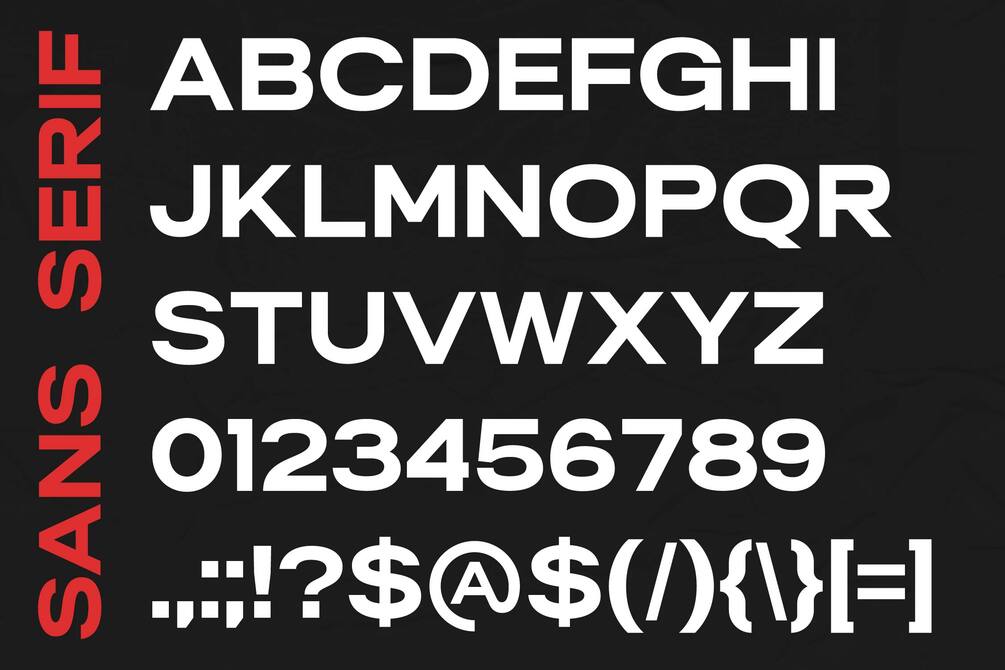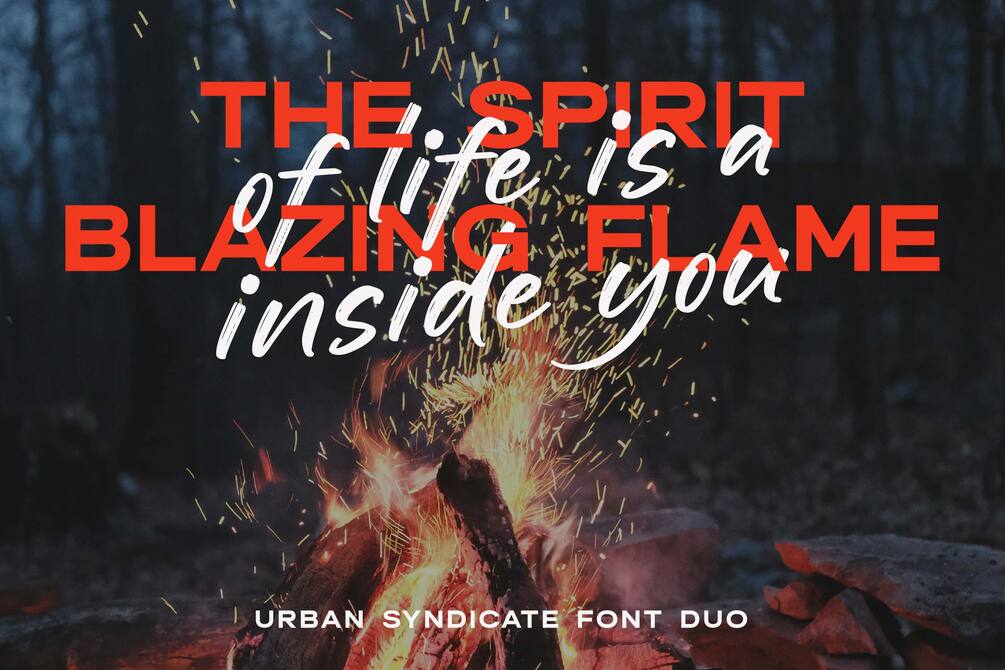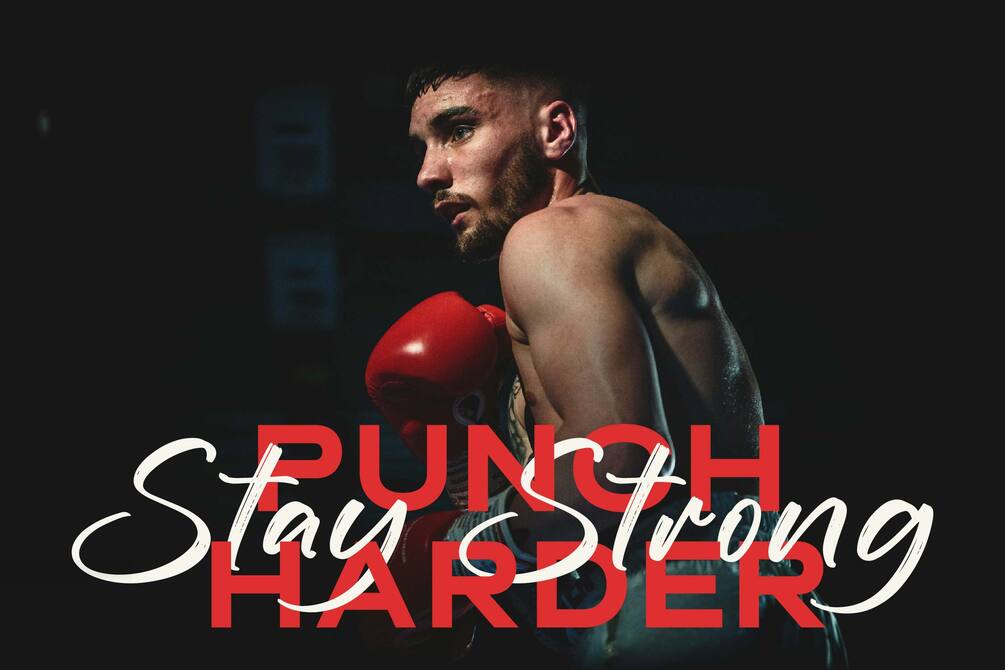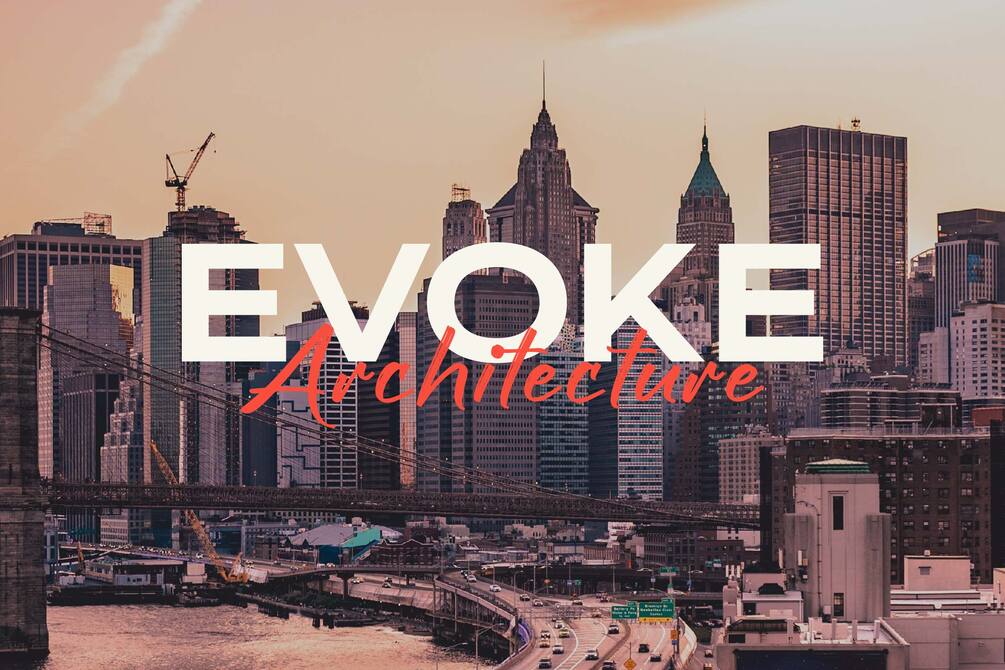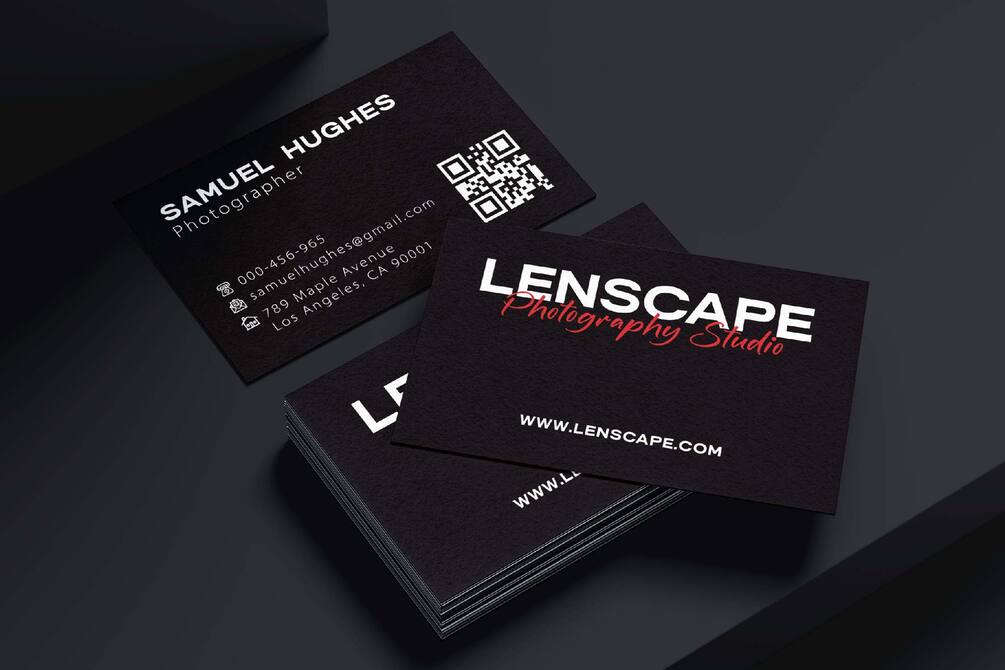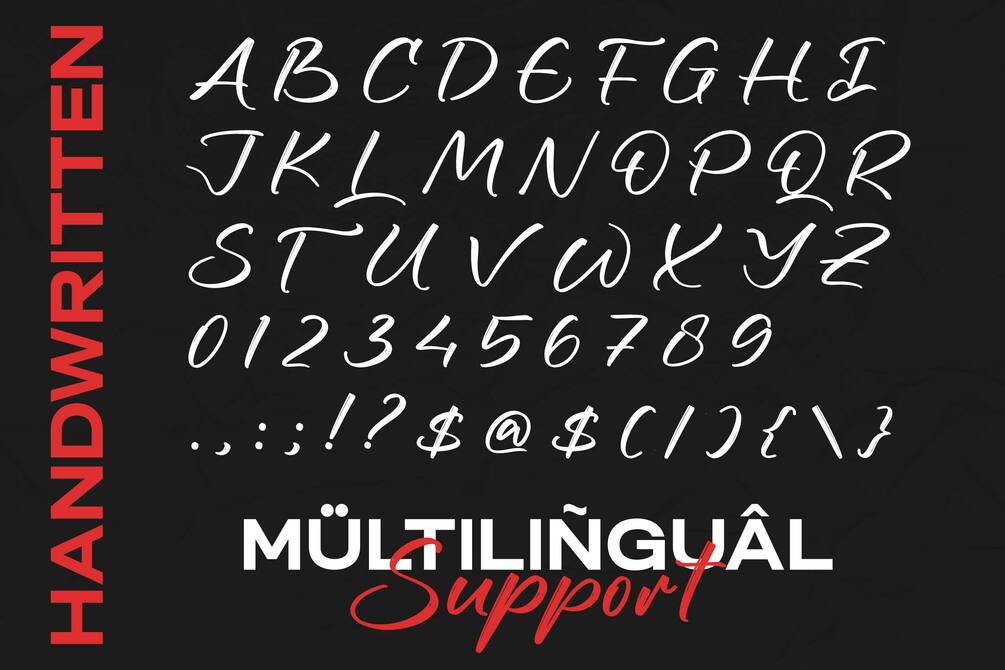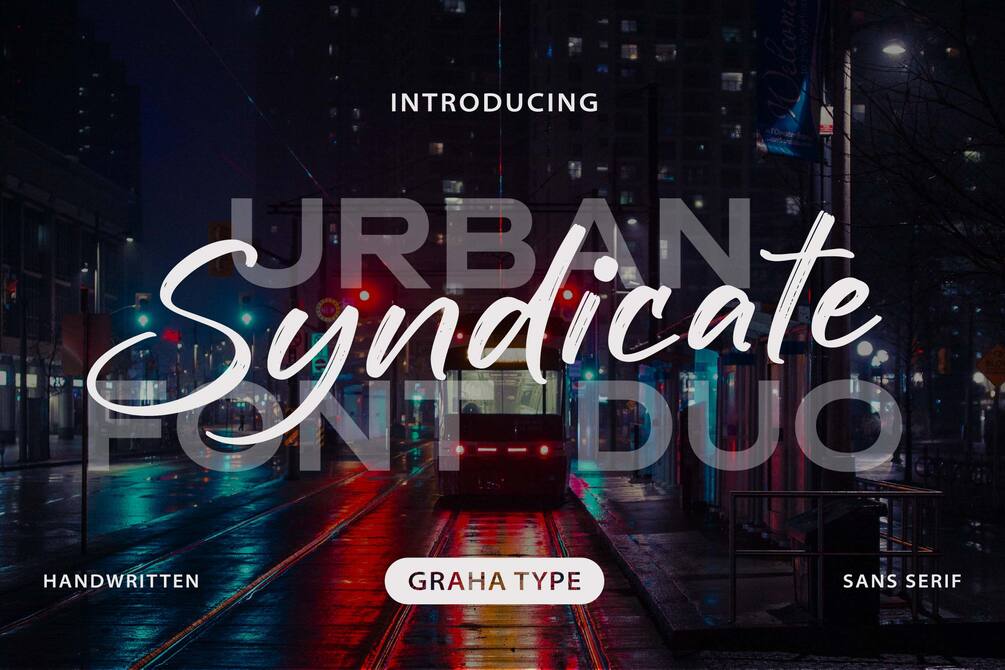
Urban Syndicate - Font Duo
Urban Syndicate Font Duo is a perfect blend of handwritten and sans serif styles, designed for various design projects. It is ideal for posters, logos, merchandise, social media, and more. Its versatility allows it to enhance visual messages and brand identities across different design contexts effectively.
• Multilingual Support